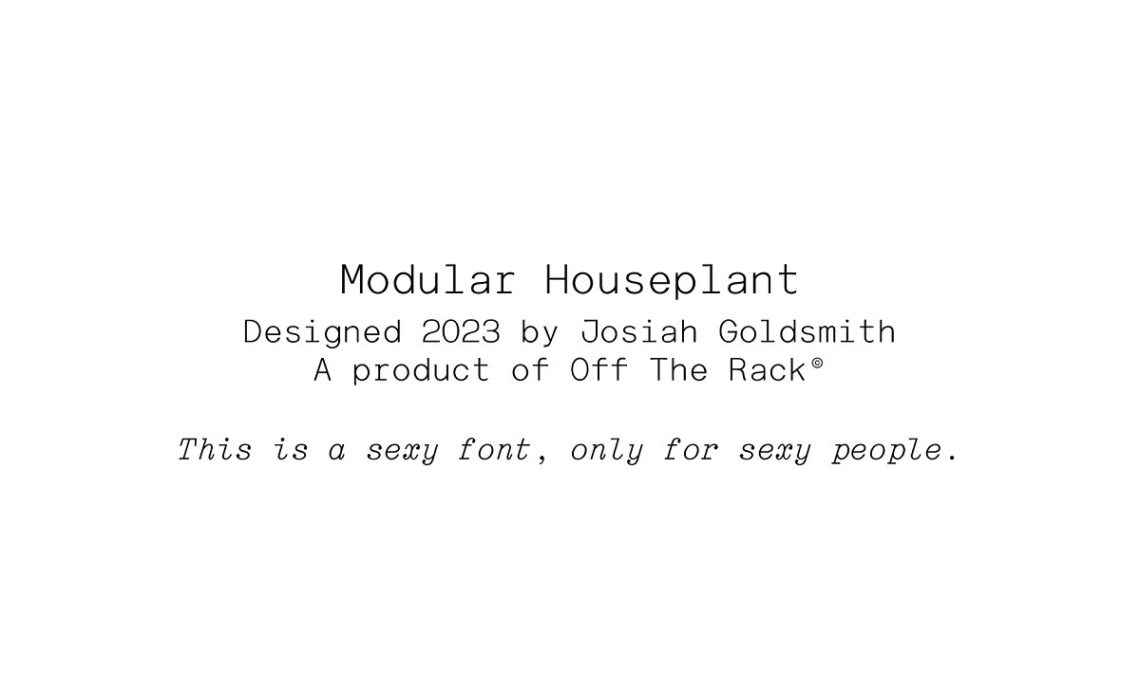
Introducing Modular Houseplant - Monospace Font, the perfect font for computer use. Created by Josiah Goldsmith, this sans-serif font family is inspired by the labels on plywood cabinets in vintage record shops. The collection includes four distinct fonts: Bold, Regular, Serif, and Italic.
Modular Houseplant is a monospaced typeface, which means that it has NO kerning. This means that when you swap a letter for another one, your layout won't change at all. In fact, you can even swap between different weights, and your layout will remain exactly the same. This feature makes it an ideal choice for designers who value consistency and uniformity.
Designed with the pioneer in mind, Modular Houseplant is versatile and easy to use. Whether you're a graphic designer, web developer, or anyone who needs a clean and professional font for their digital projects, Modular Houseplant is the font for you.
With its bold and elegant design, Modular Houseplant will elevate your designs to new heights. Its unique and distinctive style will grab the attention of your audience and leave a lasting impression. Whether you're creating a logo, a website, or a print advertisement, Modular Houseplant is the perfect choice to make your message stand out.